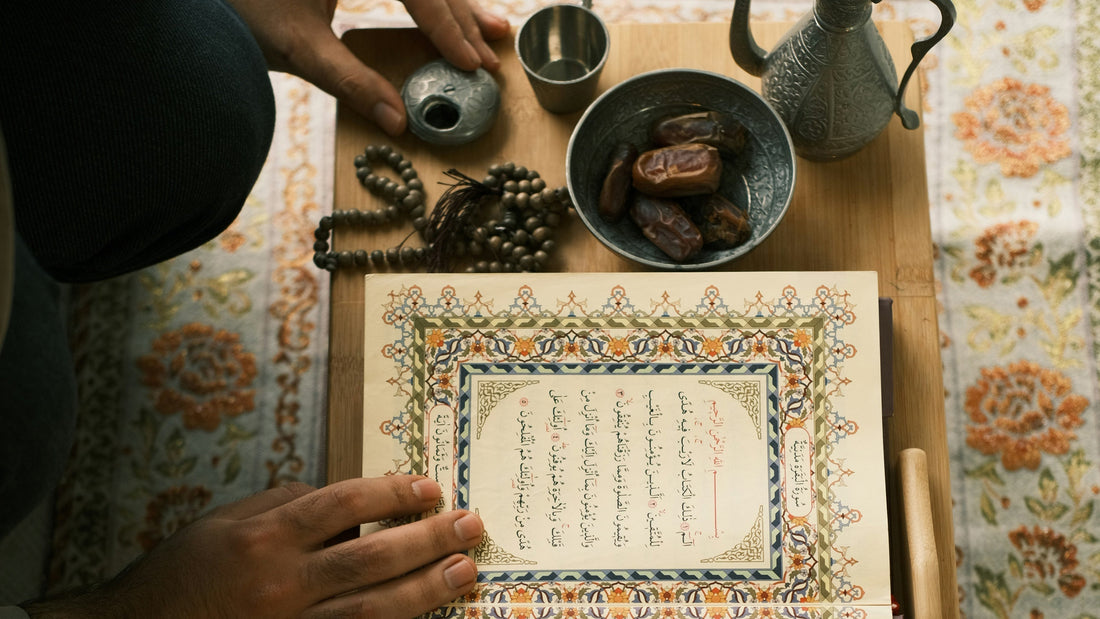
Throughout history, the written word has been more than just a tool for communication — it has been an art form, a meditative practice, and a means of personal expression. Whether carved into stone, written with ink on parchment, or digitally designed on a screen, letters carry a profound beauty. But not all forms of letter creation are the same. Typography, type design, calligraphy, and hand lettering may seem similar, but each has its own distinct characteristics, origins, and purpose.
Typography: The Art of Arranging Letters
Typography refers to the art and technique of arranging type to make written language readable, and preferably, visually appealing to a certain audience. It is widely used in digital and print media, from books and websites to advertisements and branding. Think of a well-designed website or a beautifully laid-out magazine. The choice of fonts, spacing, and alignment all contribute to an aesthetically pleasing and effective reading experience.
Typography has been essential since the invention of the printing press by Johannes Gutenberg in the 15th century, revolutionizing the way knowledge was disseminated. Today, designers work with pre-existing fonts to create balance and harmony in their compositions.
Type Design: Crafting the Letters
If typography is about arranging letters, type design is about creating them. Type designers develop fonts, carefully crafting each letterform to ensure readability and beauty. The famous Helvetica font, for instance, designed by Max Miedinger in 1957, is a prime example of type design. Its clean and neutral look makes it one of the most widely used typefaces worldwide.
Type design requires a deep understanding of letter structures, proportions, and how different characters interact. Unlike typography, which arranges existing fonts, type design involves crafting entirely new letterforms.
Calligraphy: The Art of Writing
Calligraphy is the ancient art of writing by hand with expressive, flowing strokes. It is often created with a brush, parallel pen, or other traditional tools that allow for variation in stroke width. Medieval monks meticulously copied religious texts using calligraphy, often decorating their work with gold leaf and elaborate illustrations. Their efforts preserved knowledge and made books a work of art.
Calligraphy has been practiced in many cultures, from Chinese and Japanese brush calligraphy to Islamic Arabic script and European Gothic lettering. Beyond its aesthetic appeal, many find calligraphy to be a peaceful and meditative practice, requiring patience, focus, and a steady hand.
Hand Lettering: The Art of Drawing Letters
Unlike calligraphy, which is writing, hand lettering is the art of drawing letters. Artists carefully sketch and refine each letter, often adding decorative elements and flourishes. Hand lettering is commonly seen in modern logo design, chalkboard signs, and custom typography for posters, book covers or branding.
Hand lettering allows for more creative freedom than traditional typefaces and is often used to create one-of-a-kind designs. The process can be deeply relaxing, as it requires an artist’s touch and thoughtful planning.
The Monks, the Masters, and the Modern Revival
Many of these practices trace back to monastic traditions. Medieval monks spent hours transcribing sacred texts, perfecting letterforms in dimly lit scriptoriums. Their dedication laid the foundation for modern calligraphy and typography.
Today, we see a revival of interest in these art forms, not just as practical skills but as mindful, meditative practices. Many people turn to calligraphy and hand lettering as a way to slow down, unplug from screens, and engage in a peaceful, creative process.
The Beauty of Letters
Typography, type design, calligraphy, and hand lettering each have unique roles in shaping how we see and interact with written language. Whether designing a font, arranging text, or writing with ink, these practices remind us of the artistry behind letters.
As we embrace these traditions, we connect with history while finding calm in the present. As calligrapher Edward Johnston once said: "Handwriting is a spiritual designing, even though it appears by means of material tools."
So whether you're selecting a typeface for a project or picking up a pen to practice calligraphy, remember: letters are more than symbols — they are a form of art.